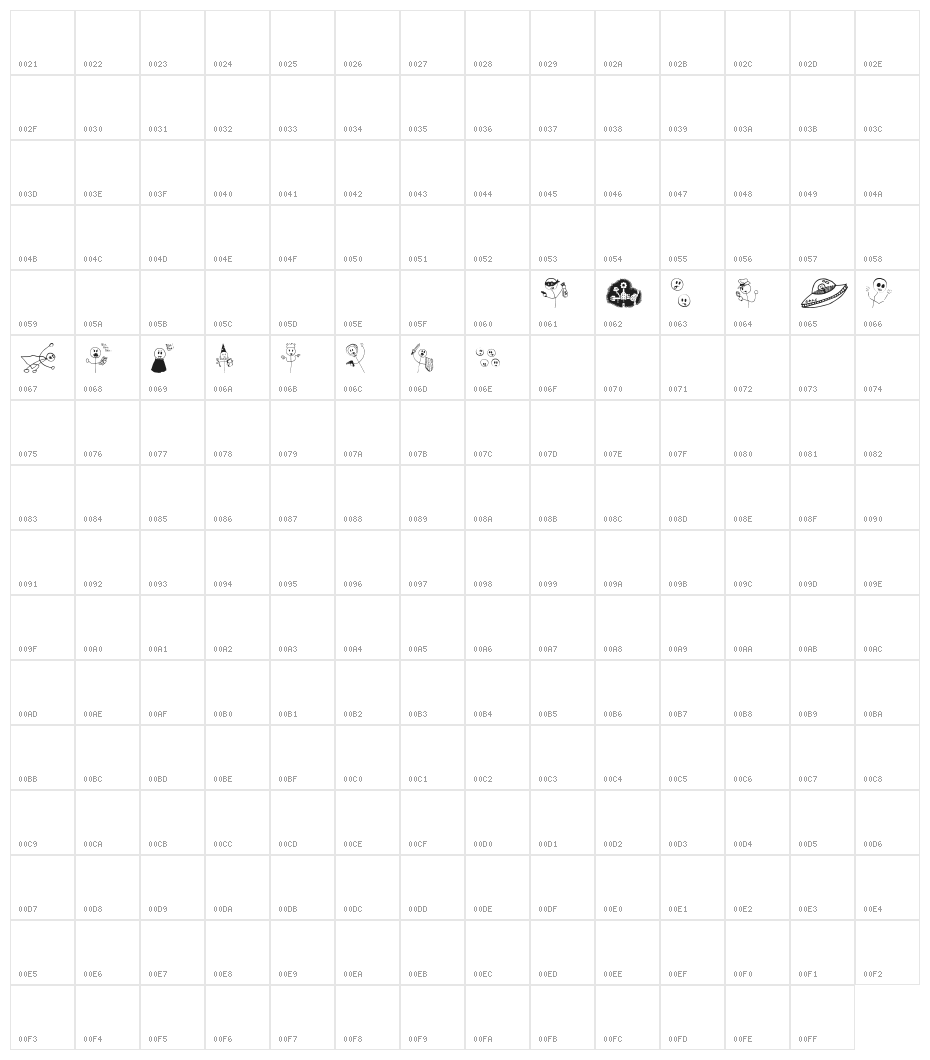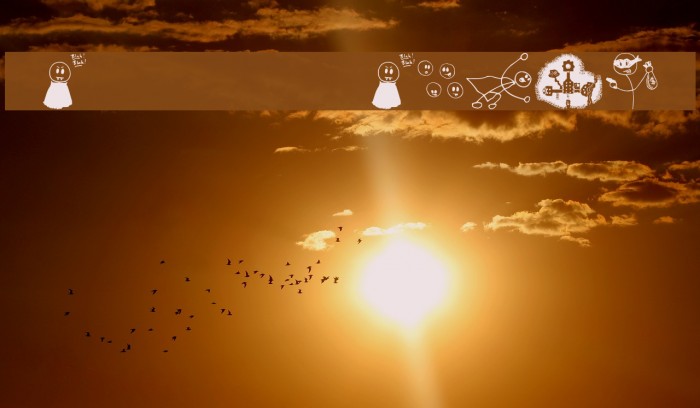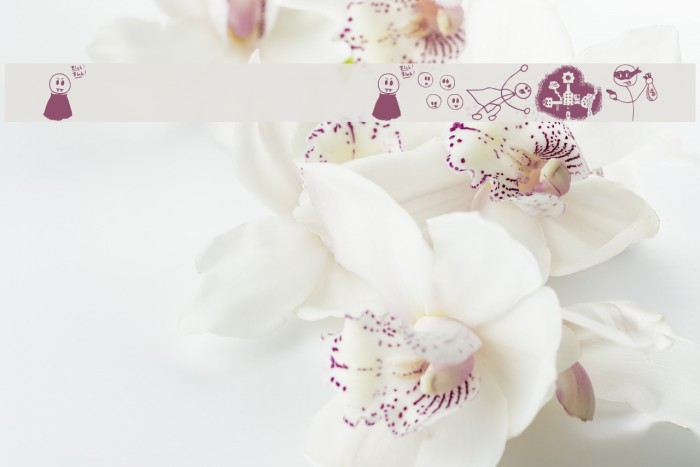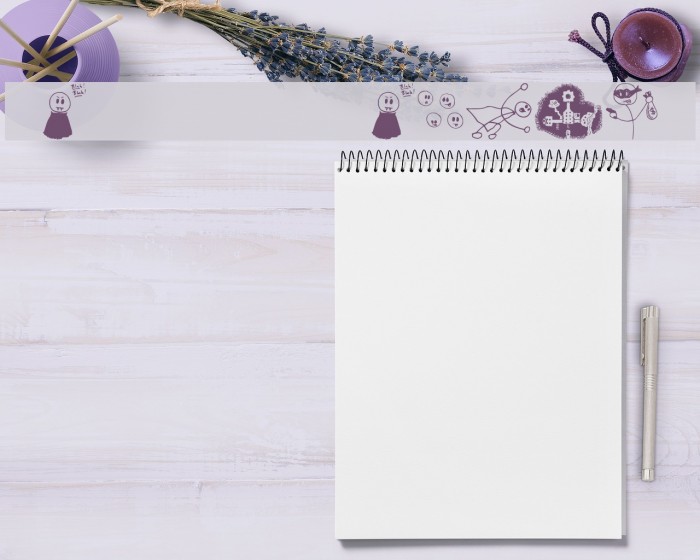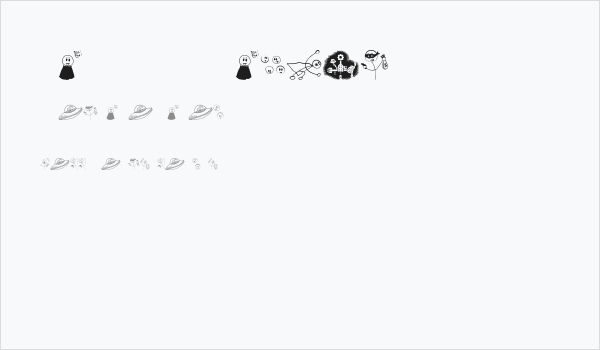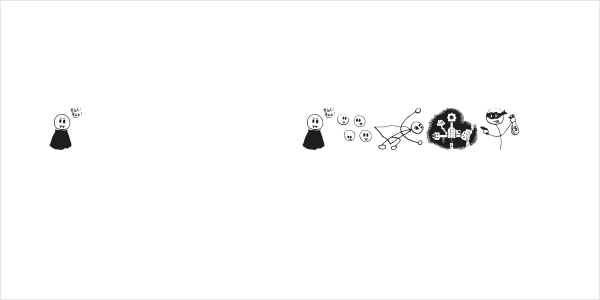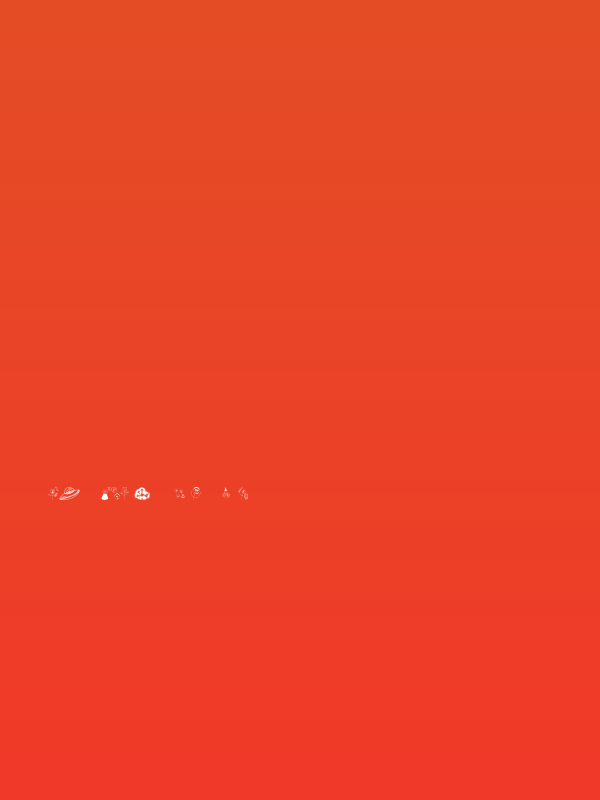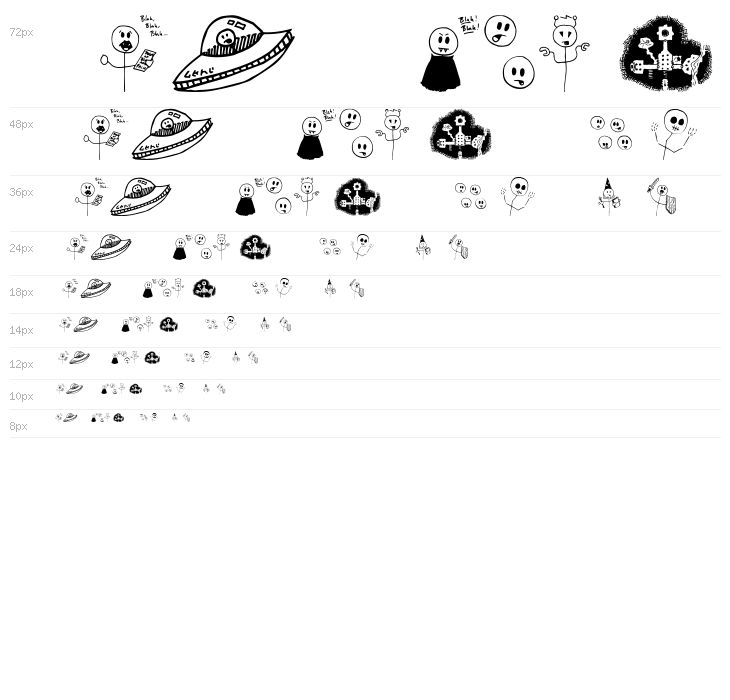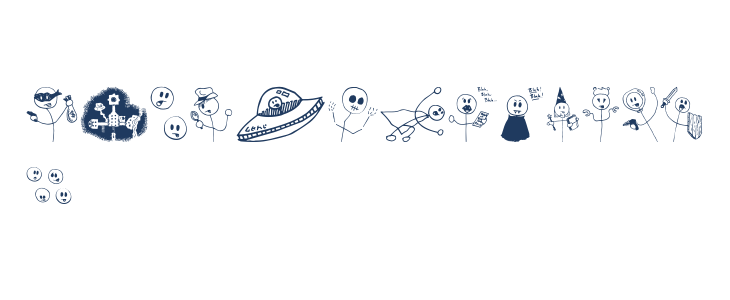
Risus LCB Dingbats Font
Risus LCB Dingbats Description
This collection features whimsical and playful stick figure illustrations, each depicting a unique character or scene. The designs include a variety of humorous and imaginative elements, such as aliens, wizards, and other quirky figures. The style is hand-drawn with a casual and lighthearted feel, making it perfect for projects that require a touch of humor and creativity. The characters are expressive, with exaggerated features and playful poses, adding to the overall charm and appeal.
| Overall Style | Whimsical |
| Use Case | Decorative illustrations, playful designs, creative projects. |
| Proposed Projects | Ideal for comic strips, children's books, playful greeting cards, and creative posters. |